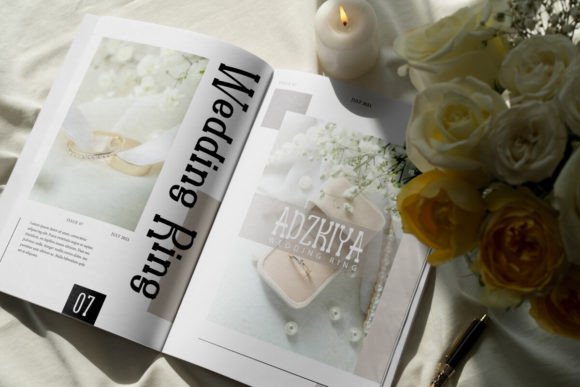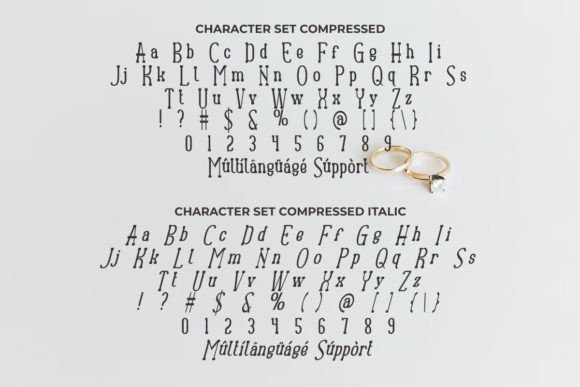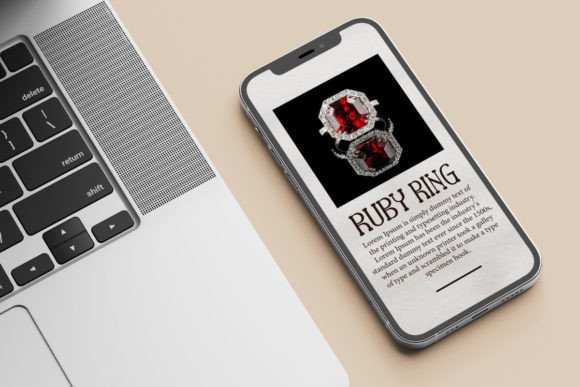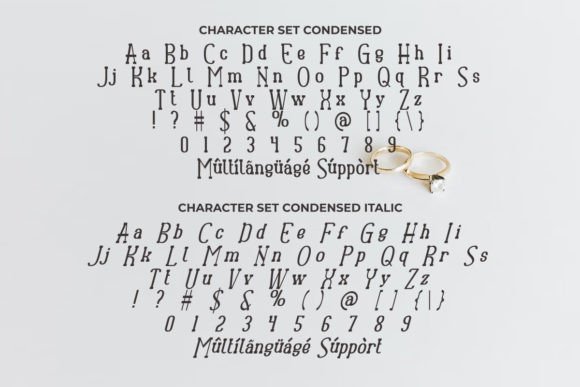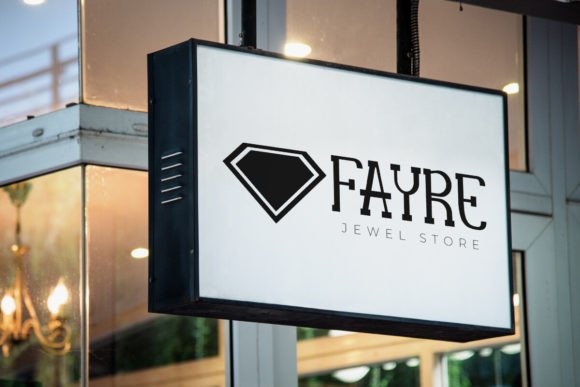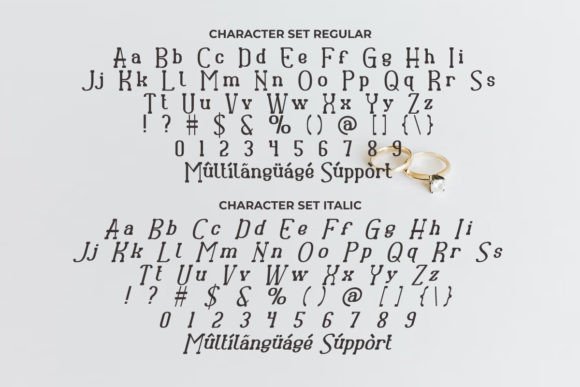
Introduction to Ruby Ring Font
The moment of truth in any design project – when the perfect font is found – is always a thrilling experience. It’s like finding the missing piece to a puzzle, and suddenly, the entire creative vision comes together. For designers, the quest for that elusive perfect font can be a time-consuming and often frustrating process. But what if I told you that your search is over, and the answer lies in the stunning Ruby Ring Font?
This exceptional slab serif display font is a game-changer, offering six versatile styles to suit any design requirement. With its unique, tall shape and transparent background, it’s a design resource that adds a touch of sophistication to any project. Whether you’re working on a high-quality publication, a creative project, or a free download, the Ruby Ring Font is sure to elevate your design to the next level.
Key Features of Ruby Ring Font
- Unique, elegant design ideal for creative projects, including wedding invitations, jewelry designs, and more.
- High-quality font with a transparent background, making it easy to use in various design resources and applications.
- Perfect for designers looking for a stylish, high-quality font to elevate their creative project.
Honest Review: Ruby Ring Font
I recently stumbled upon the Ruby Ring Font while searching for a design resource for a creative project, and I must say, it caught my attention. The font’s unique blend of elegance and sophistication makes it perfect for any high-quality design.
- ✨ The transparent background option allows for seamless integration with any design, giving you complete creative control.
- ✨ The font’s high-quality design ensures that it will look great in any application, from print to digital media.
- ⚠️ The font may not be suitable for all design projects, particularly those requiring a more casual or playful tone.
- ⚠️ Some users may find the font’s complexity overwhelming, especially when used in large quantities.
Overall, I’m impressed with the Ruby Ring Font’s potential. While it may not be perfect for every design project, it’s a valuable addition to any designer’s toolkit. If you’re looking for a high-quality, versatile font, the Ruby Ring Font is definitely worth considering.
Ruby Ring Font
Integrating Ruby Ring Font in PowerPoint/Word
Ruby Ring Font can also be used in PowerPoint and Word documents. To do this, download the font and install it on your computer. You can then select the font in your document and adjust the size, color, and style to suit your needs. For a free download, look for reputable websites that offer free font downloads.
Tips for Getting the Most Out of Ruby Ring Font
To get the most out of Ruby Ring Font, experiment with different font sizes, colors, and styles. You can also combine it with other design elements, such as images and graphics, to create a unique and eye-catching design. For a creative project, consider using Ruby Ring Font in conjunction with a transparent background to create a modern and sleek look.
Common Use Cases for Ruby Ring Font
Ruby Ring Font is suitable for a wide range of creative projects, including logos, business cards, brochures, and social media graphics. Its high-quality design and versatility make it an ideal choice for designers and non-designers alike.